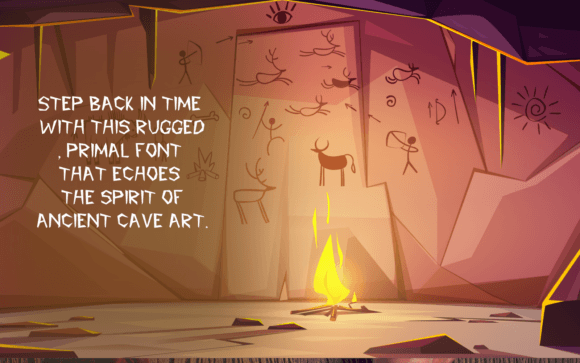
Uncovering the Secrets of the Ancient World with Cave Lore Font
Have you ever been lost in a dusty archive, flipping through yellowed pages of ancient texts, and suddenly stumbled upon an illustration of a long-forgotten cave painting? The thrill of discovery is a creative moment we all cherish, and it’s exactly this sense of adventure that Cave Lore Font embodies.
This rugged, primal font is more than just a design element – it’s a key to unlocking the mystique of the past. With its strokes reminiscent of ancient markings on stone, Cave Lore Font brings an earthy, untamed quality to any project. Whether you’re crafting a brand identity, designing a poster, or creating a book cover, this font offers a unique and captivating appeal that’s sure to transport your audience to a bygone era.
For designers seeking to tap into the essence of the primitive world, Cave Lore Font is a valuable addition to any toolkit. Its raw, unbridled energy is the perfect accompaniment to your next creative project, waiting to be unleashed and share its story with the world.
Cave Lore Font Key Features
- Font Size: The font comes in a single weight, making it suitable for a variety of design projects. The font size is 1,046 glyphs, providing a comprehensive character set for effective communication.
- Unique Characteristics: The font features a unique blend of ancient and mystical elements, making it perfect for projects that require an air of mystery and sophistication.
- Language Support: Cave Lore Font supports multiple languages, including Latin, Greek, and Cyrillic, allowing designers to create content in various languages with ease.
Cave Lore Font Review
I recently had the chance to work with the Cave Lore Font, and I must say it’s a unique and intriguing choice for designers. Here’s my honest take on this font:
- Distinctive aesthetic: Cave Lore Font has a distinct, rugged feel that’s perfect for projects that require a sense of history or mystique.
- Well-suited for titles and headings: The font’s bold lines and rough textures make it an excellent choice for titles, headings, and other display text.
- Highly customizable: With its wide range of weights and styles, Cave Lore Font offers plenty of options for designers to experiment with different looks and feels.
- Limited legibility: While Cave Lore Font is great for titles and headings, its rough texture can make it difficult to read in smaller sizes or when used for large blocks of text.
- Not ideal for body text: Due to its bold lines and rough texture, Cave Lore Font is not the best choice for body text, as it can be overwhelming and difficult to read.
Overall, I think Cave Lore Font is a great choice for designers who want to add a touch of rugged elegance to their projects. However, it’s essential to use it judiciously, reserving it for titles, headings, and other display text where its unique aesthetic can shine.
Tips for Getting the Most Out of Cave Lore Font
Use Cave Lore Font sparingly to create a sense of mystery and intrigue. Pair it with bold, geometric shapes for a dramatic effect. Experiment with different font sizes and colors to create visual interest. Avoid using the font in large blocks of text, as it can become overwhelming.
Cave Lore Font is perfect for:
- Adventure and fantasy-themed designs